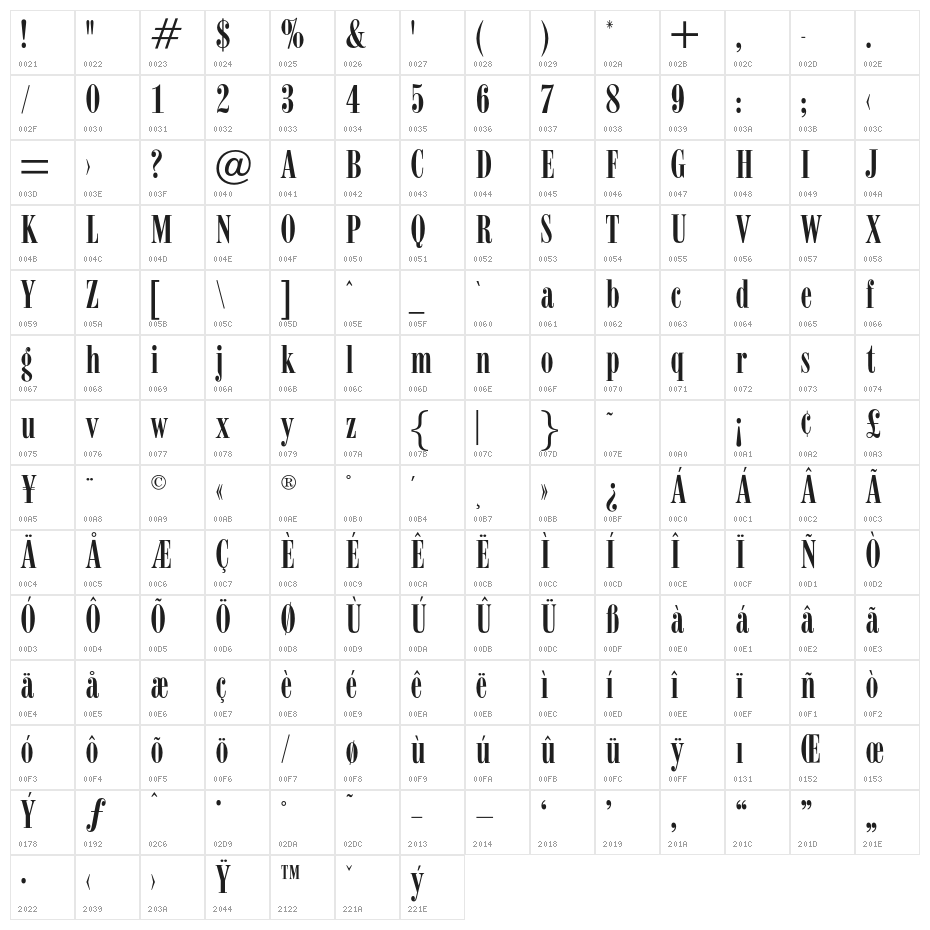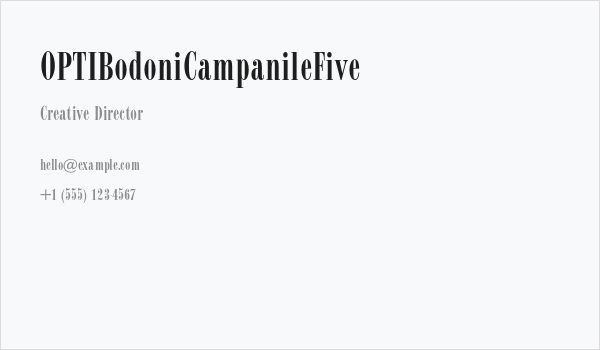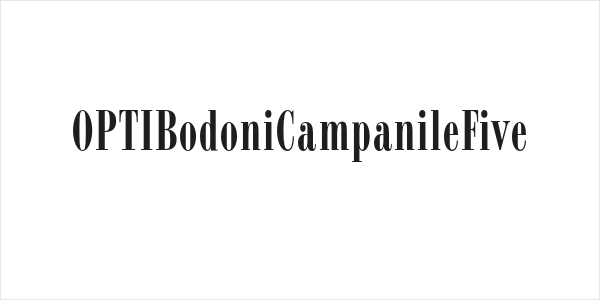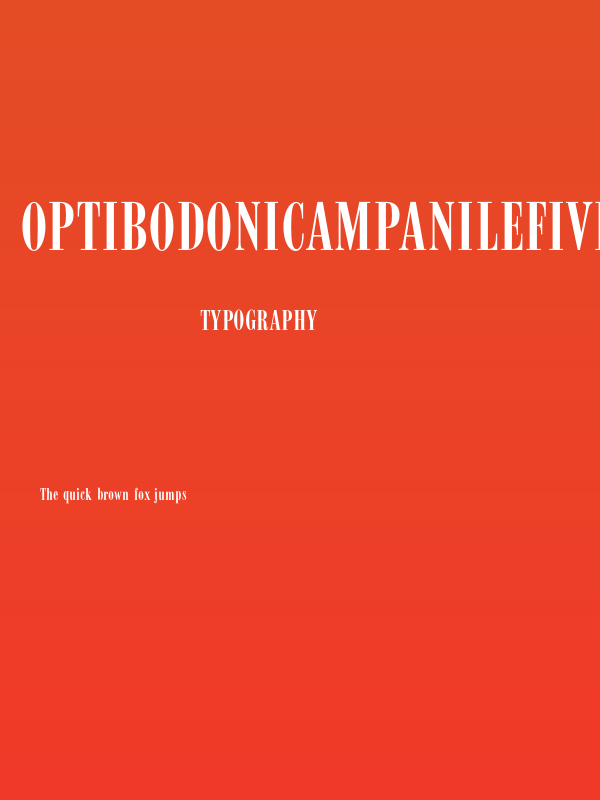
OPTIBodoniCampanileFive Font
OPTIBodoniCampanileFive Description
This typeface exudes a classic elegance with its high contrast between thick and thin strokes, characteristic of a traditional serif style. The uppercase letters are tall and stately, with a refined, elongated appearance that commands attention. The lowercase letters maintain a consistent style, offering a harmonious blend of curves and straight lines. The numerals are distinct and easily readable, while the special characters are crafted with the same attention to detail, ensuring a cohesive look across all glyphs. The overall design is sophisticated, making it suitable for projects that require a touch of class and formality.
| Proposed Projects | Ideal for luxury branding, editorial design, formal invitations, and high-end packaging. |